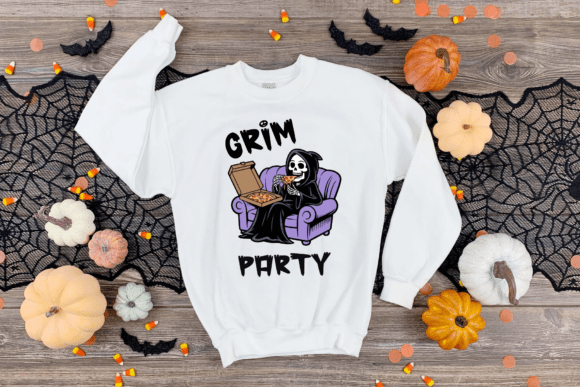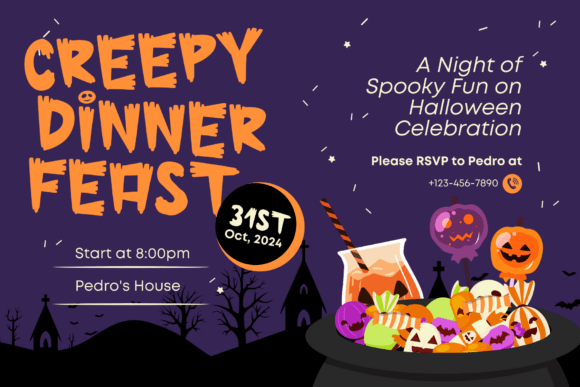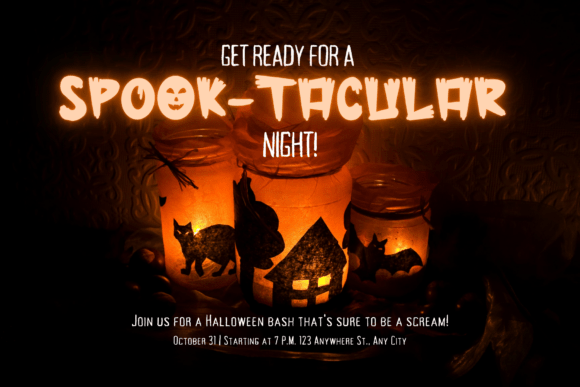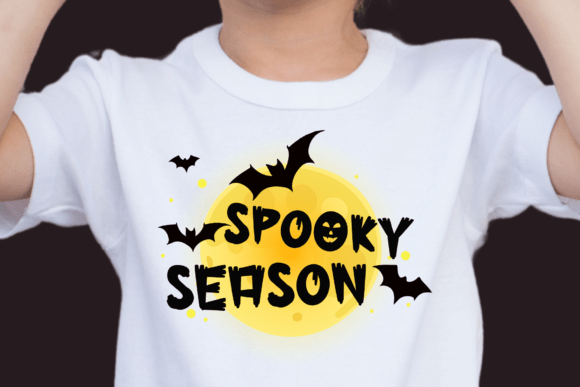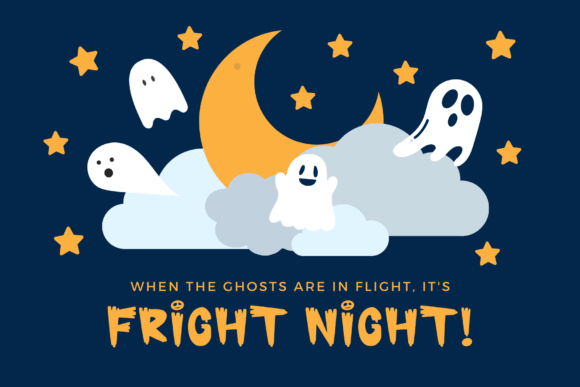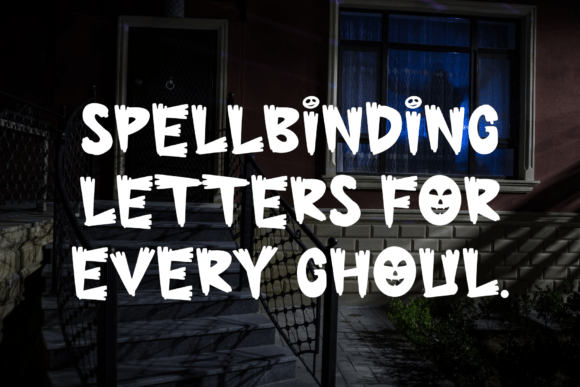
Grim Hollow Font: Unleash the Spooky Spirit with this Haunting Typeface
As the spookiest time of the year approaches, designers and crafters are on the lookout for the perfect font to capture the eerie essence of Halloween. Look no further than the Grim Hollow Font, a decorative typeface that embodies the dark, sinister spirit of the season. With its jagged edges, irregular shapes, and haunting style, this font is guaranteed to send shivers down the spines of your audience.
The Perfect Font for Halloween Themes and Thriller Titles
Grim Hollow is a Halloween decorative font that is specifically designed to evoke the eerie atmosphere of the spookiest time of the year. Its unique, hand-crafted design features jagged edges and irregular shapes that give it a delightfully sinister feel. Whether you’re creating posters, flyers, or social media graphics for Halloween, or crafting thriller titles that need to send chills down the spine, Grim Hollow is the perfect choice.
Unleash the Haunting Atmosphere
One of the standout features of Grim Hollow is its ability to instantly grab attention and set a dark tone. The font’s haunting style is perfect for designers and crafters who want to create a sense of foreboding or unease in their work. Whether you’re designing a spooky movie poster, a haunted house invitation, or a creepy craft project, Grim Hollow delivers a haunting atmosphere that will leave a lasting impression on your audience.
Key Features of Grim Hollow Font
- Jagged Edges: The font’s jagged edges give it a delightfully rough, handmade feel that’s perfect for creating a spooky or thriller atmosphere.
- Irregular Shapes: The irregular shapes and sizes of the font’s characters add to its sinister style, making it perfect for creating eye-catching posters and titles.
- Haunting Style: Grim Hollow’s unique design delivers a haunting atmosphere that’s guaranteed to send shivers down the spines of your audience.
- Perfect for Designers and Crafters: Whether you’re a designer or crafter, Grim Hollow is the perfect font for creating spooky or thriller-themed projects.
Using Grim Hollow Font in Your Designs
Grim Hollow is a versatile font that can be used in a variety of design projects, from posters and flyers to social media graphics and craft projects. Here are a few ideas to get you started:
- Halloween Posters: Use Grim Hollow to create eye-catching posters for Halloween events, haunted houses, or spooky movie screenings.
- Thriller Titles: Add a touch of suspense to your thriller titles with Grim Hollow’s haunting style.
- Craft Projects: Use Grim Hollow to add a spooky touch to your craft projects, such as Halloween decorations, gift tags, or cards.
- Social Media Graphics: Create spooky social media graphics for Halloween or thriller-themed events using Grim Hollow.
Tips for Getting the Most out of Grim Hollow
To get the most out of Grim Hollow, here are a few tips to keep in mind:
- Experiment with Sizes: Don’t be afraid to experiment with different font sizes to create a more dramatic effect.
- Play with Colors: Try using different colors to add an extra layer of spookiness to your design.
- Combine with Images: Combine Grim Hollow with spooky images or illustrations to create a truly haunting design.